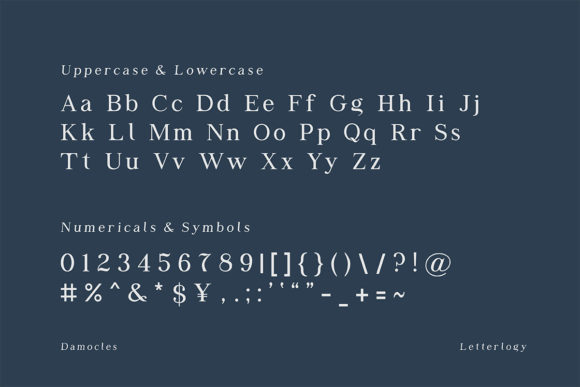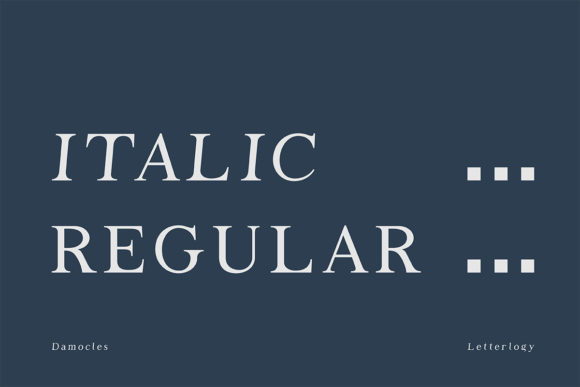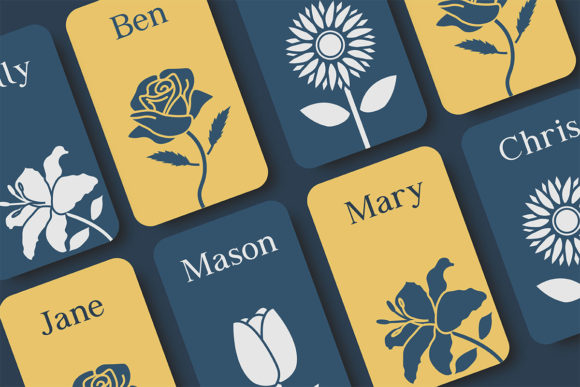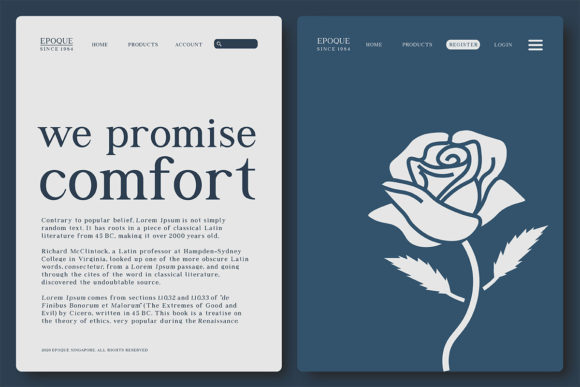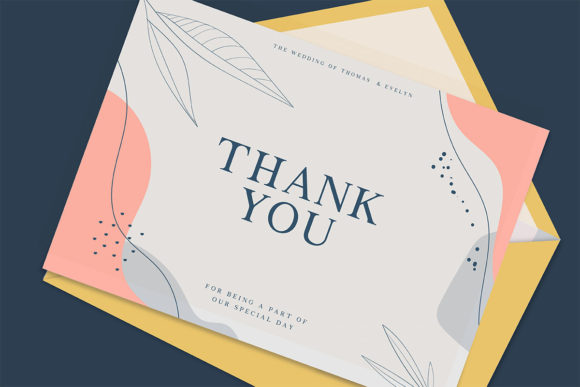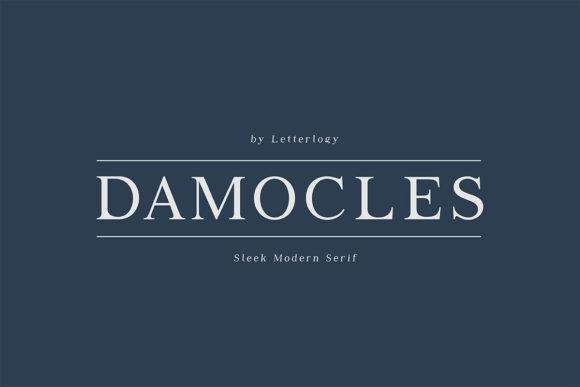
Introducing Damocles Font: The Epitome of Modern Serif Elegance
In the realm of typography, few fonts manage to strike a balance between modernity and timelessness. Damocles Font, however, achieves this delicate equilibrium with remarkable finesse. Described aptly as a clean and modern serif font, Damocles embodies the perfect blend of boldness, assertiveness, and adaptability. This versatile typeface is engineered to complement a wide array of creative ideas, with the only limitation being your imagination.
The Design Philosophy Behind Damocles
Damocles Font is not just another addition to the vast universe of typefaces. It is a meticulously crafted design that aims to bring a fresh perspective to the world of serif fonts. Its clean lines and modern aesthetic make it an excellent choice for designers and crafters looking for a typeface that can elevate their projects. Whether you’re working on a branding campaign, a digital application, or a print project, Damocles offers the sophistication and elegance required to make your work stand out.
Key Features of Damocles Font
- Clean and Modern Design: The font boasts a sleek and contemporary look, thanks to its well-defined serifs and balanced letterforms.
- Bold and Assertive: Damocles makes a statement with its confident presence, making it perfect for headlines, titles, and any content that needs to grab attention.
- Adaptable: Its versatility allows it to seamlessly integrate into various design contexts, from digital interfaces to print materials.
- Wide Range of Creative Applications: From editorial design to web design, packaging, and more, Damocles can bring your creative visions to life.
Who Can Benefit from Damocles Font?
Damocles Font is a valuable asset for a broad spectrum of professionals and enthusiasts. Graphic designers can use it to add a touch of modern sophistication to their projects. Crafters and DIY enthusiasts will find Damocles to be an excellent choice for creating visually appealing crafts, cards, and other handmade items. Moreover, web designers and developers can utilize Damocles to enhance the typography of their websites, making them more engaging and professional.
Tips for Using Damocles Effectively
To maximize the impact of Damocles Font in your projects, consider the following tips:
- Pair it with Simplicity: Allow Damocles to be the focal point by pairing it with simpler, sans-serif fonts for body text.
- Experiment with Sizes: Play with different font sizes to create visual hierarchy and emphasize key messages.
- Utilize its Boldness: Take advantage of Damocles’ assertive nature for headlines and calls-to-action.
- Consider Color: Choose colors that complement the modern and clean aesthetic of Damocles.
Damocles Font stands out in the crowded world of typography with its unique blend of modernity, cleanliness, and versatility. Its bold and assertive presence, coupled with its adaptability, makes it an invaluable tool for designers and crafters. Whether you’re embarking on a new design project or looking to refresh your brand’s typography, Damocles offers a compelling solution. Unleash your creativity and let Damocles guide your design journey, pushing the boundaries of what’s possible with a modern serif font.
Embark on a design journey like no other with Damocles Font. Let its elegance, versatility, and modern charm redefine the way you approach typography in your projects.